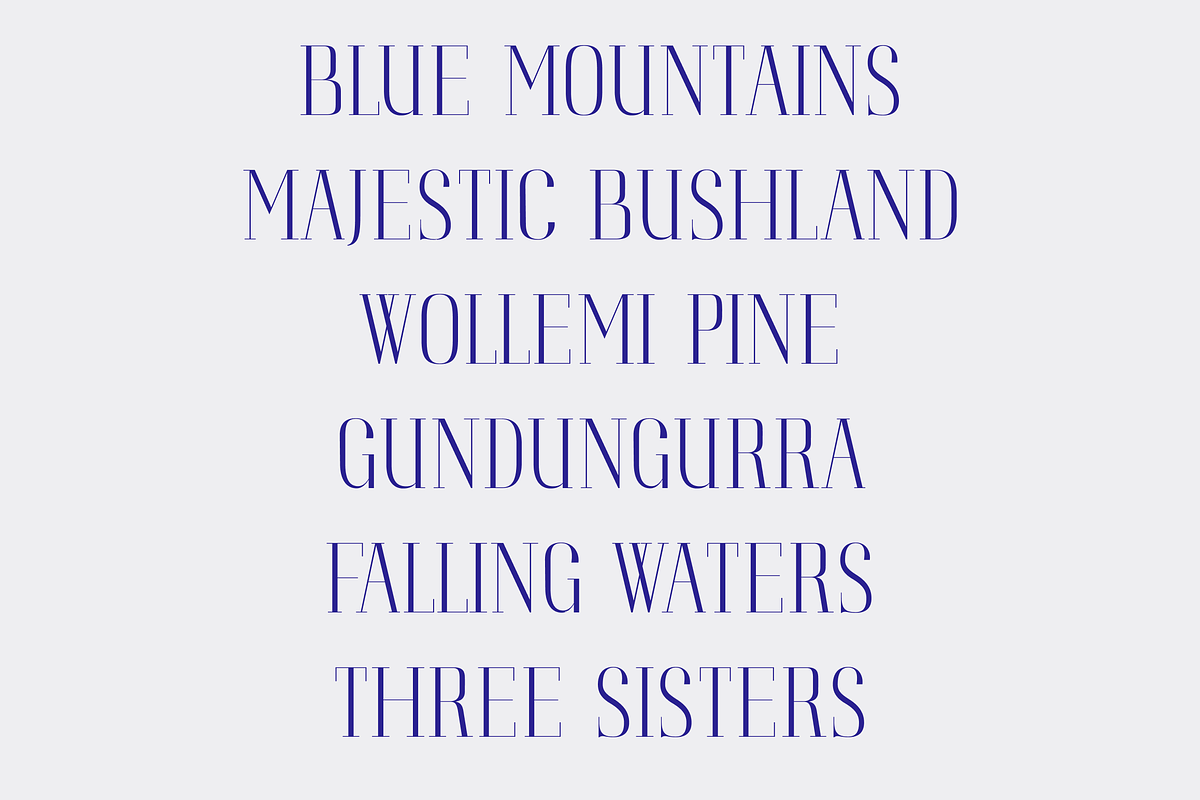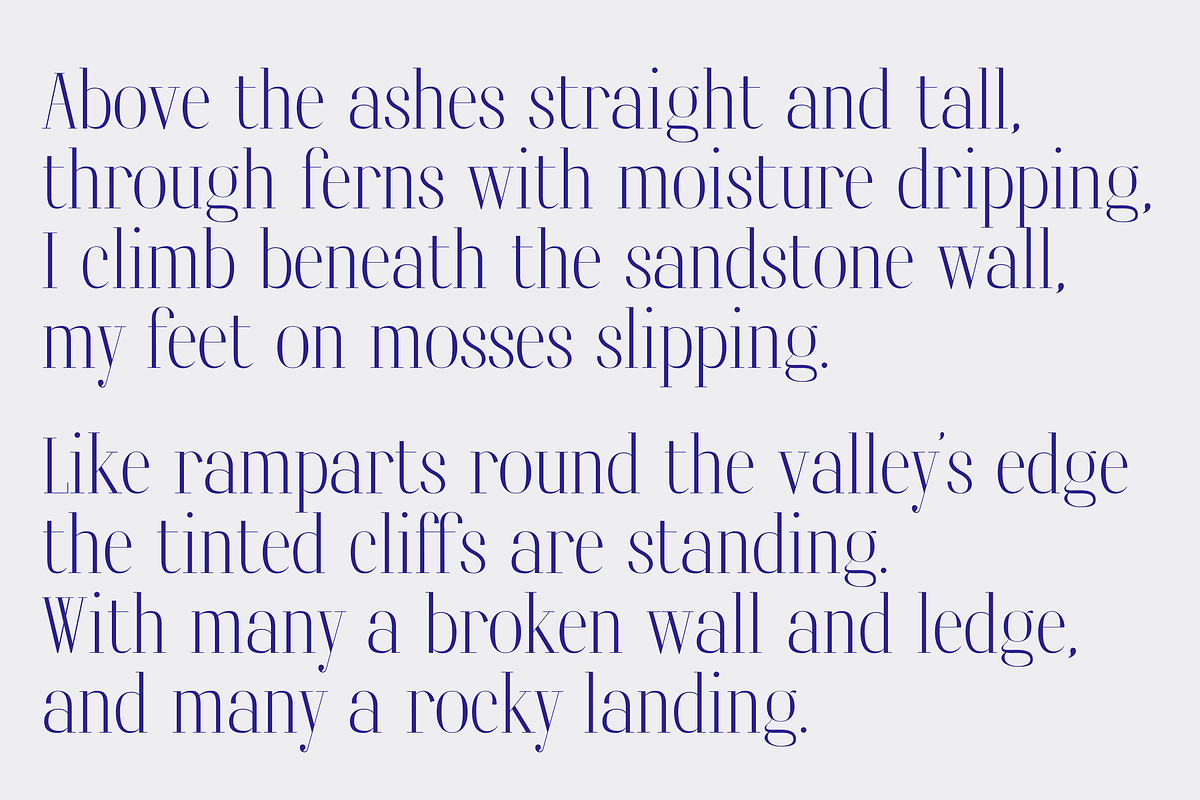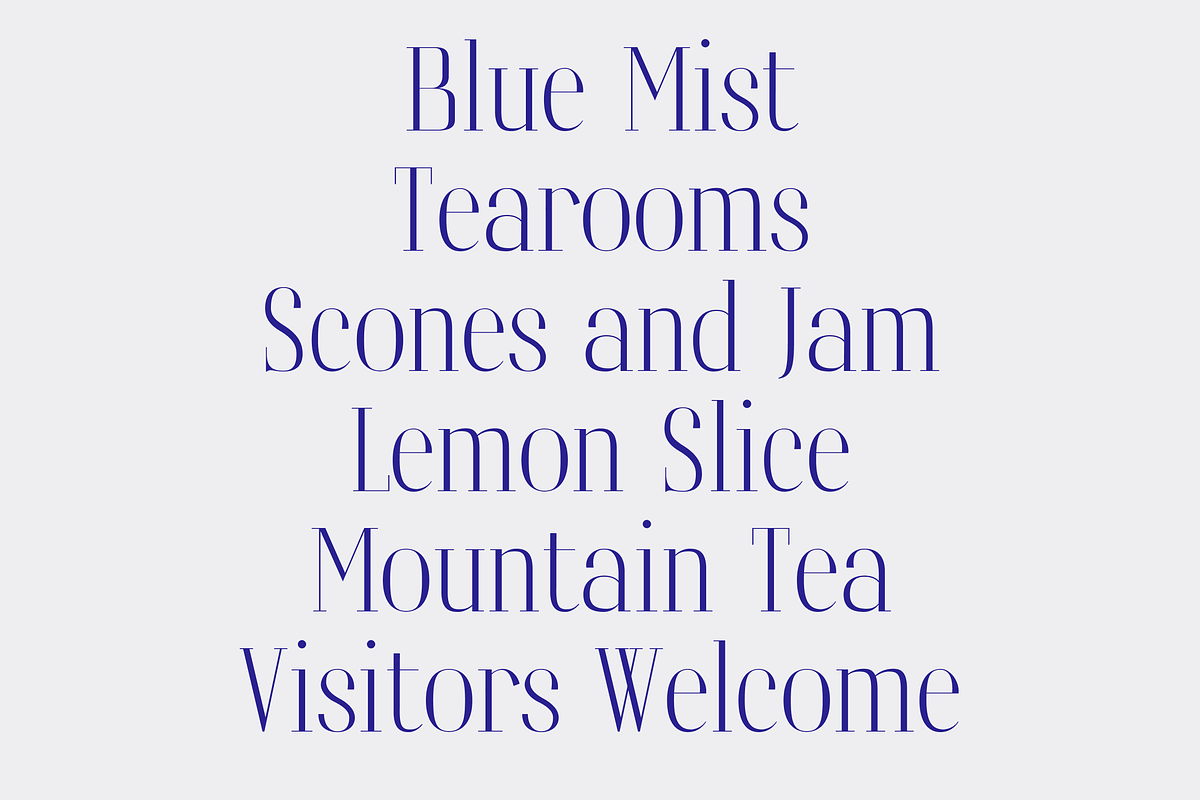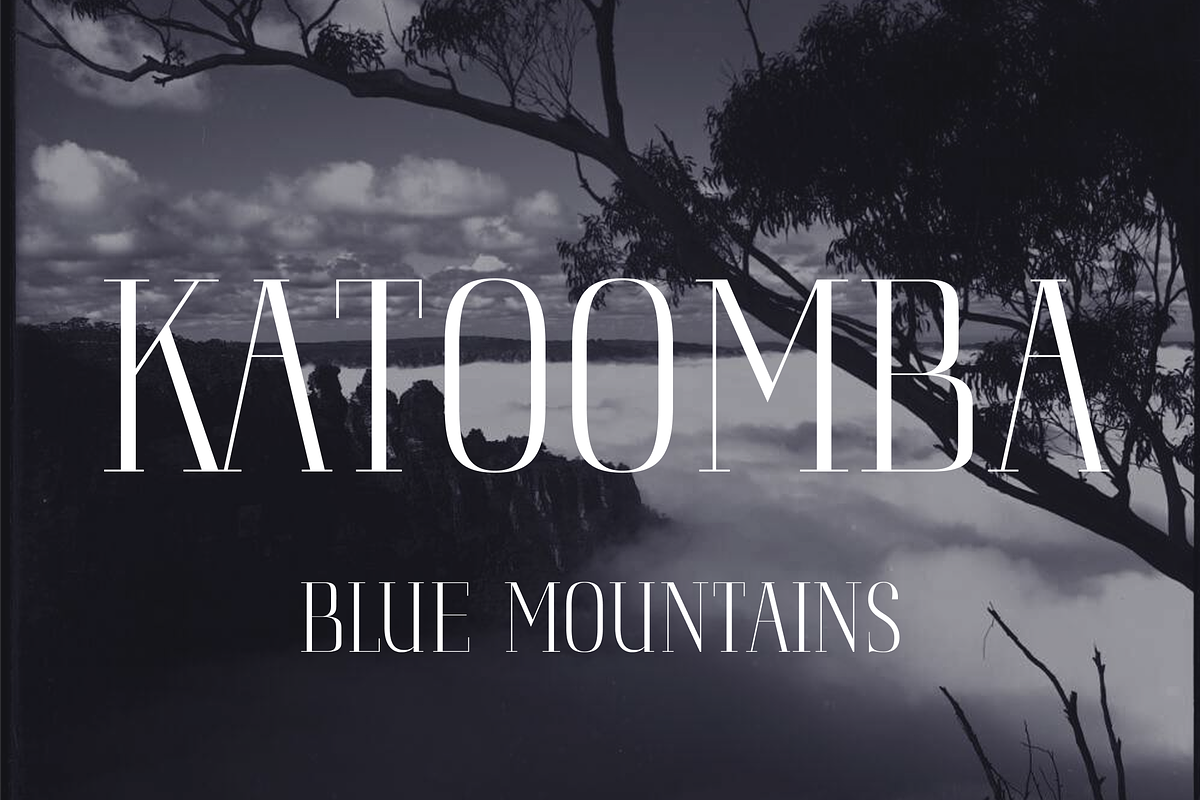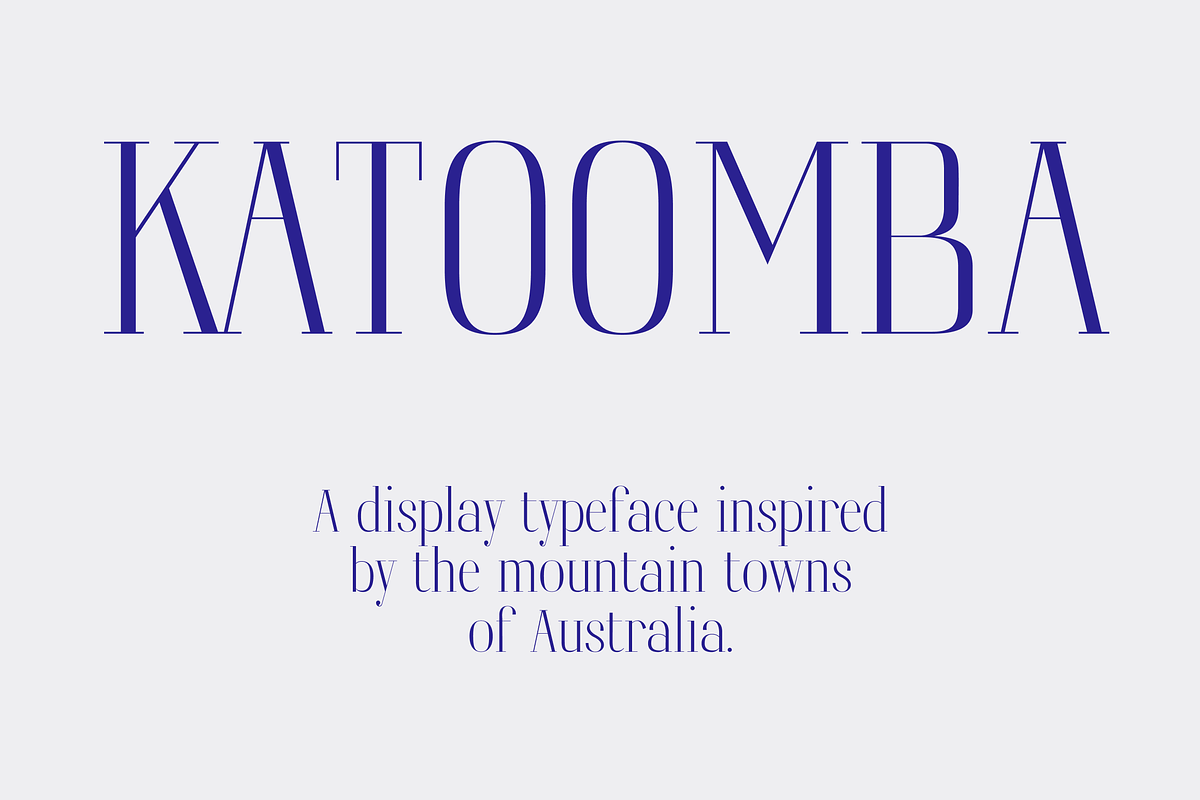
Katoomba
Katoomba is a characterful display typeface inspired by the mountain towns, railway posters, cafés and grand hotels of 1930s Australia.
Its distinctive letterforms evoke hand-painted signage, vintage tourism advertisements and the misty atmosphere of the Blue Mountains. With both uppercase and lowercase characters, Katoomba works beautifully for short headlines, place names and expressive display text.
Designed to be used at medium to large sizes, Katoomba is ideal for:
• Posters and travel-inspired artwork • Café menus and restaurant branding • Signage and wayfinding • Packaging and labels • Editorial headlines • Logos and visual identities • Invitations and event graphics • Vintage-inspired merchandise
Katoomba feels equally at home on a mountain tearoom menu, a railway destination poster or the sign above a neighbourhood café.
The font includes uppercase and lowercase letters, numerals and punctuation. It also includes a "high waisted" alternative stylistic set.